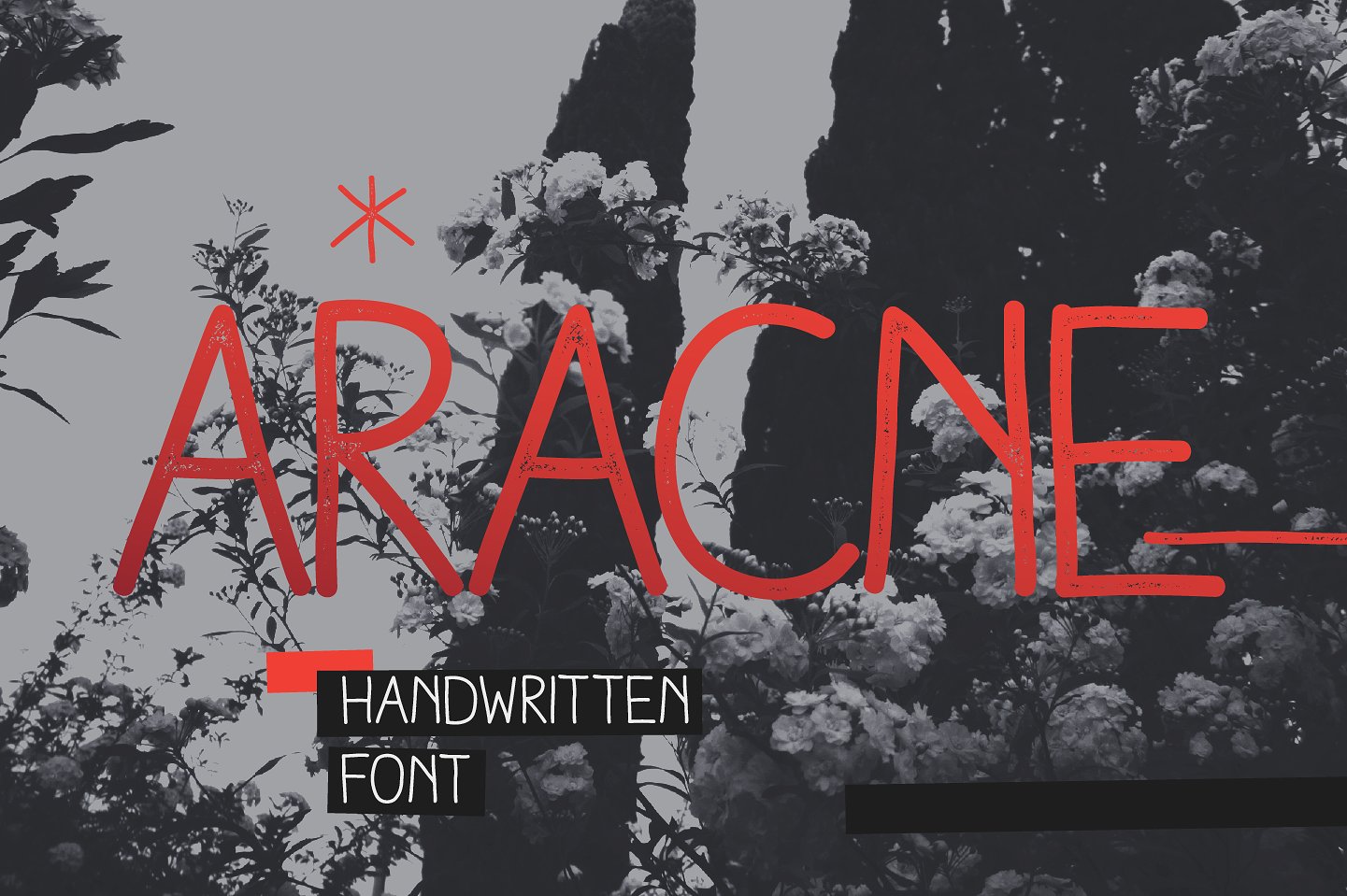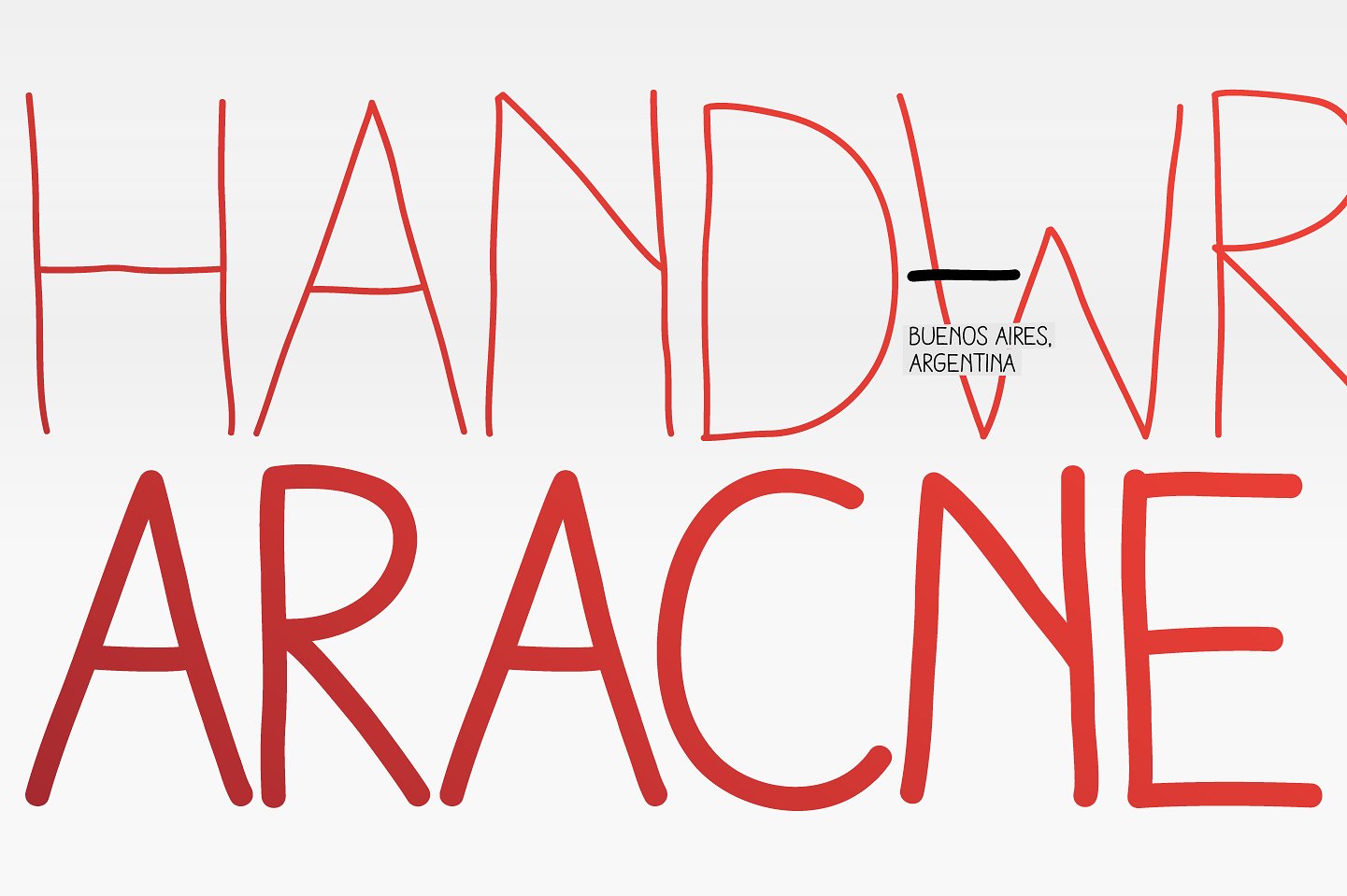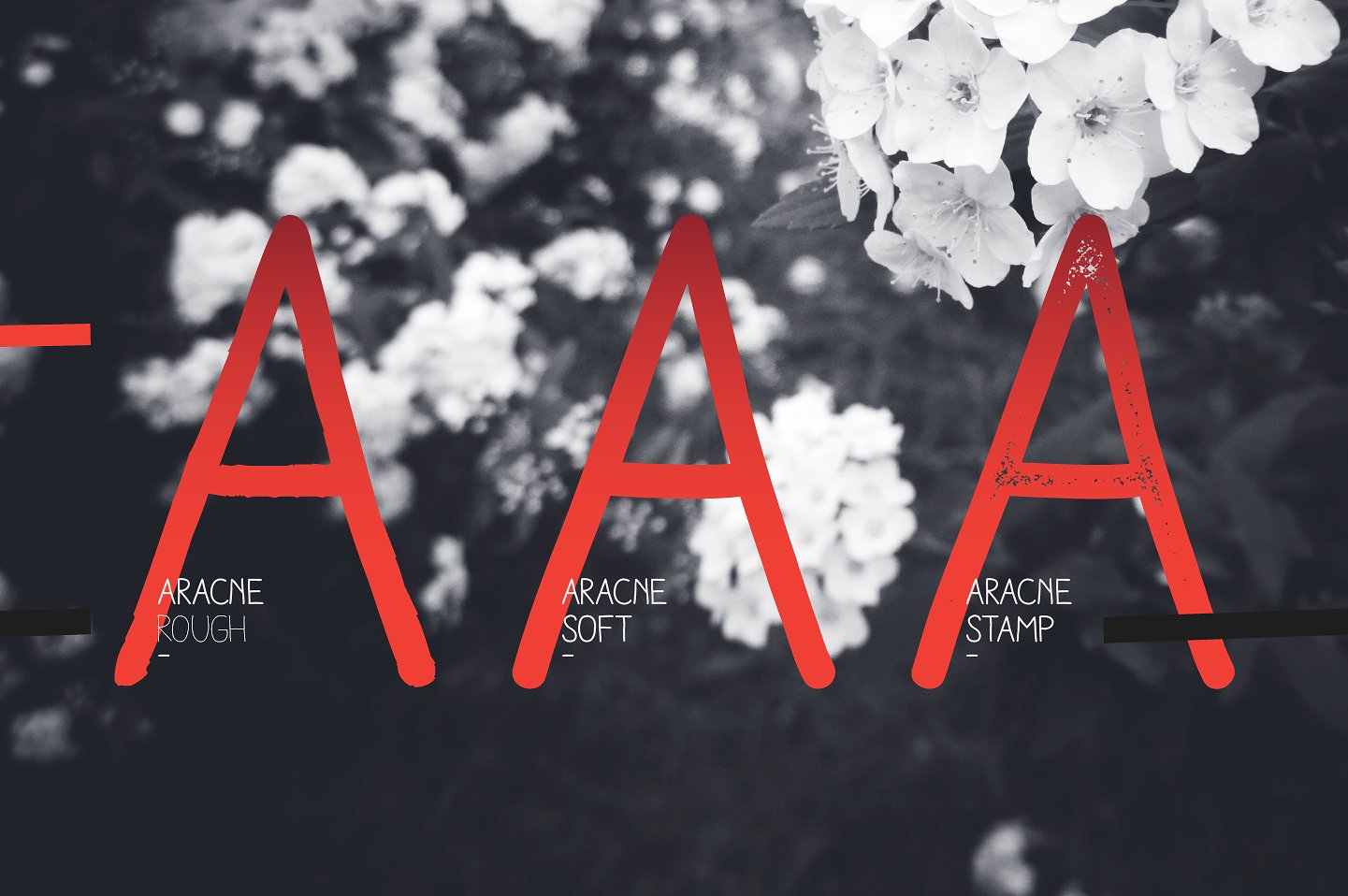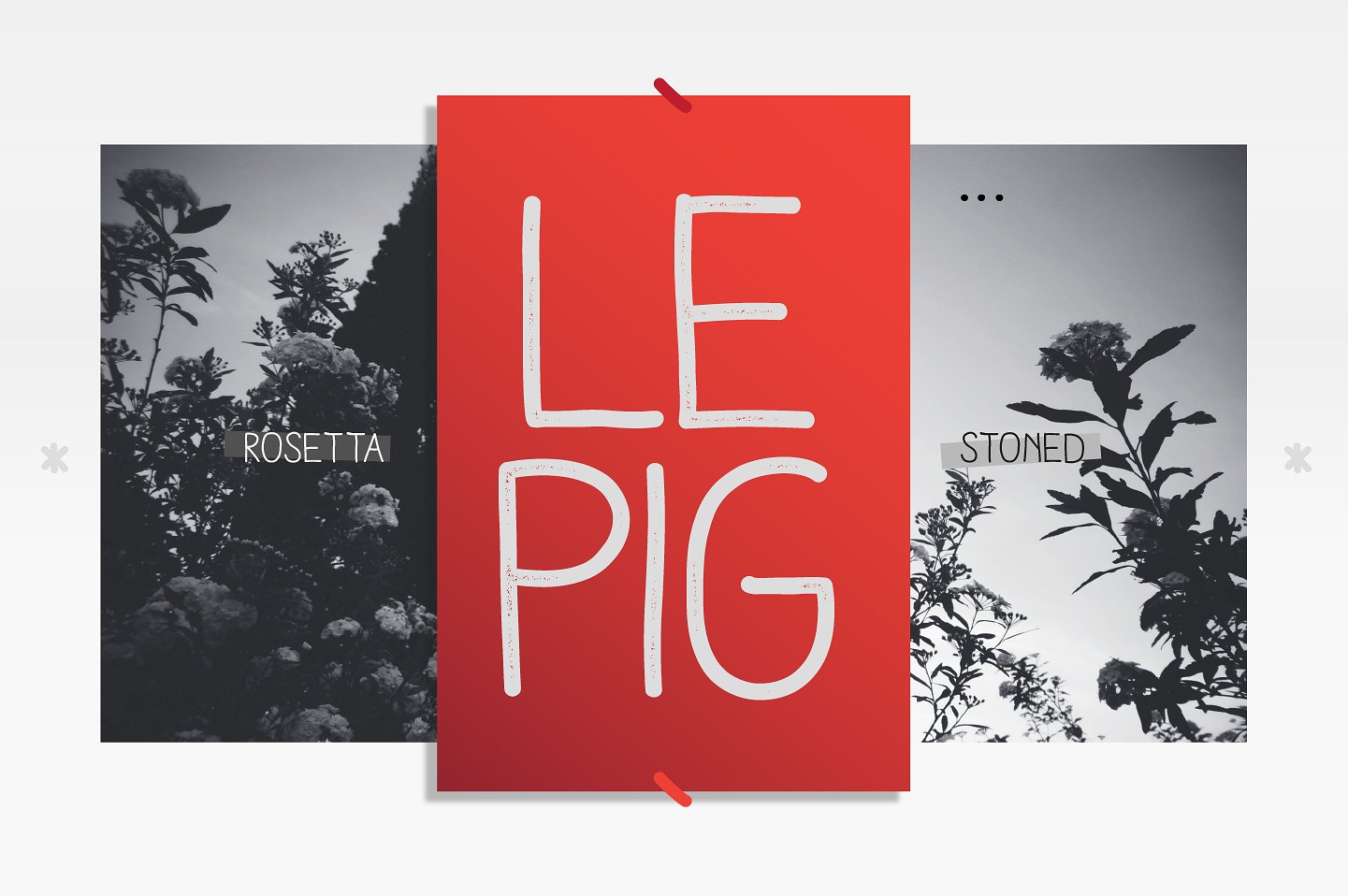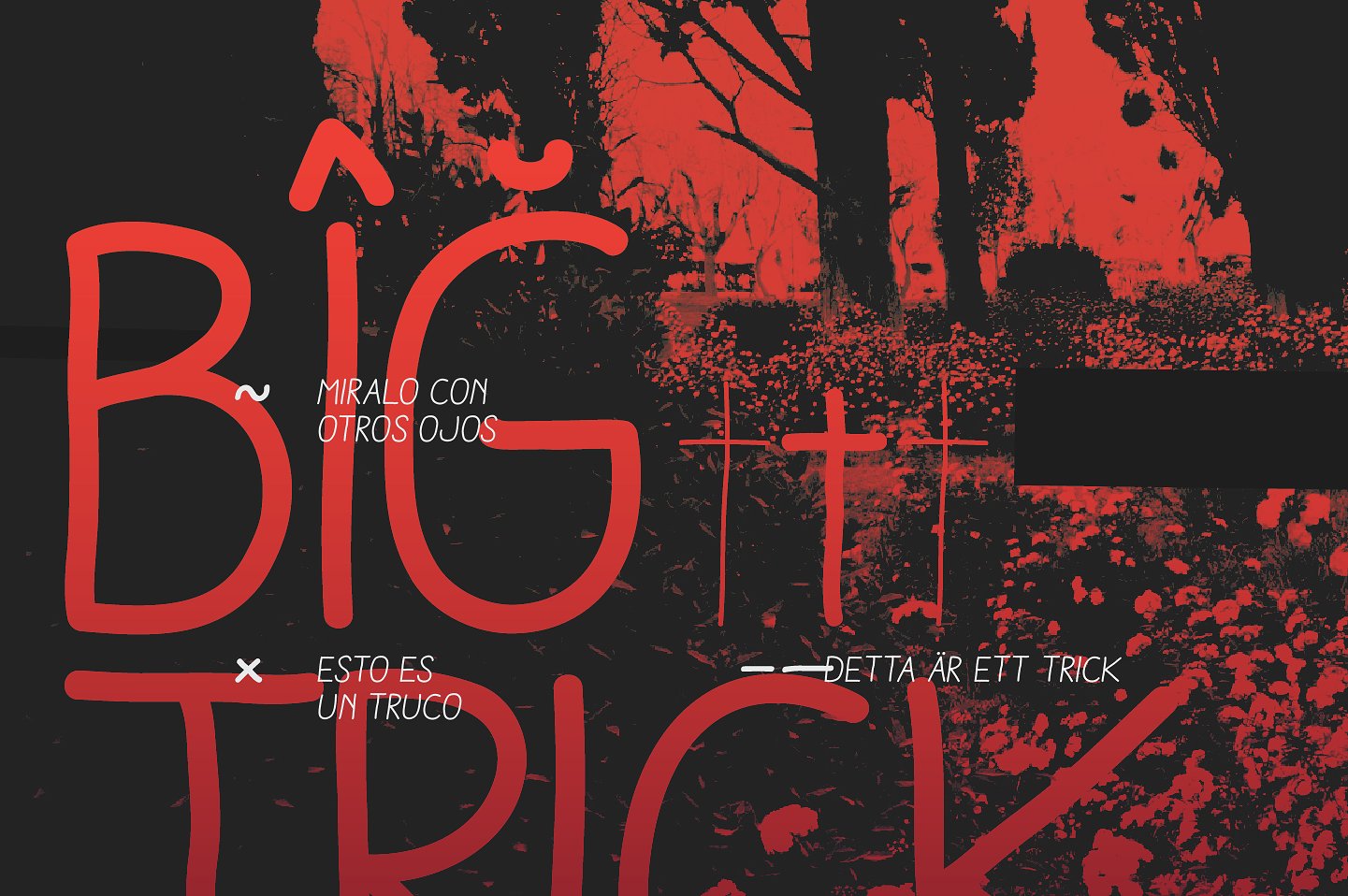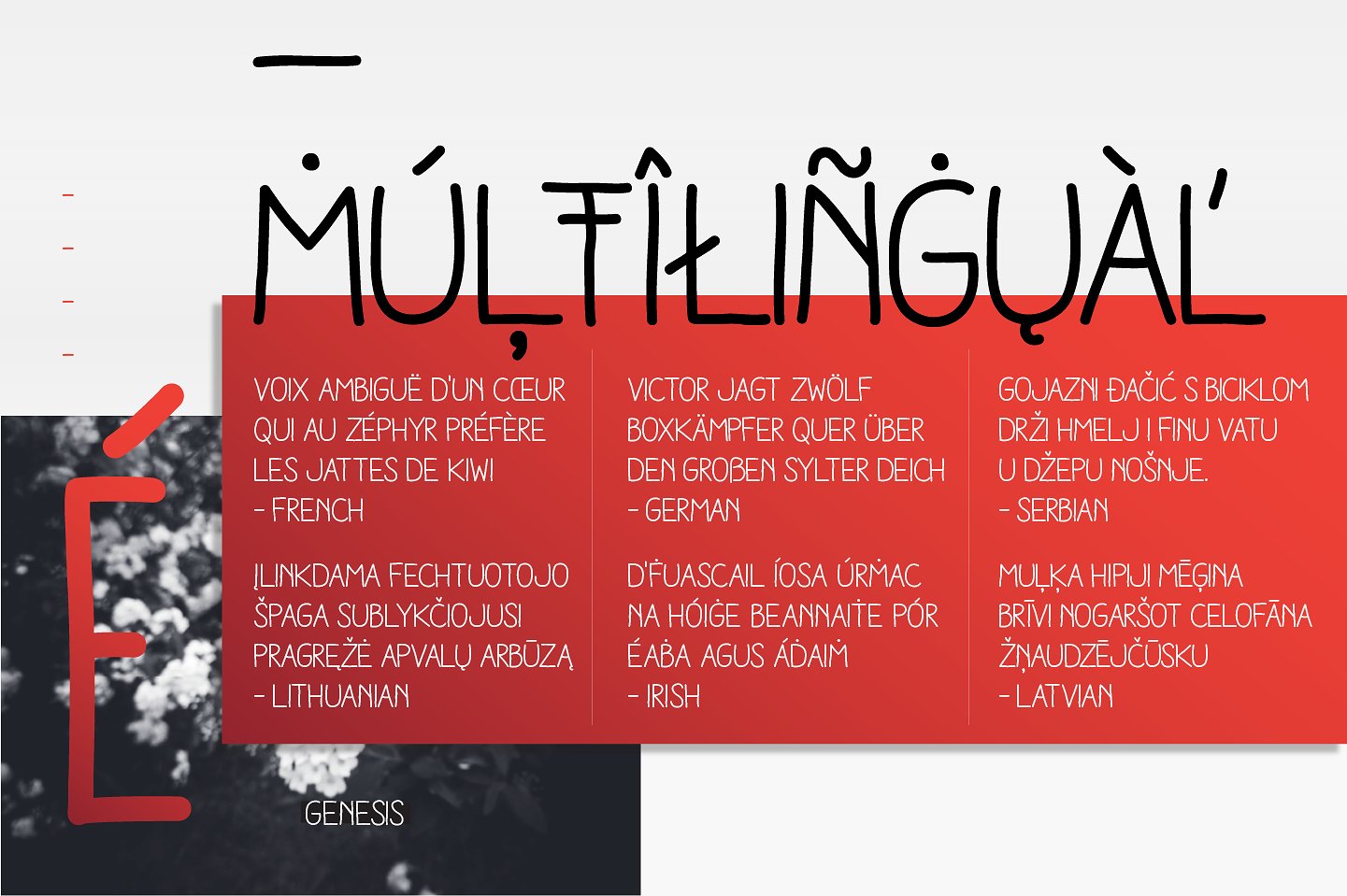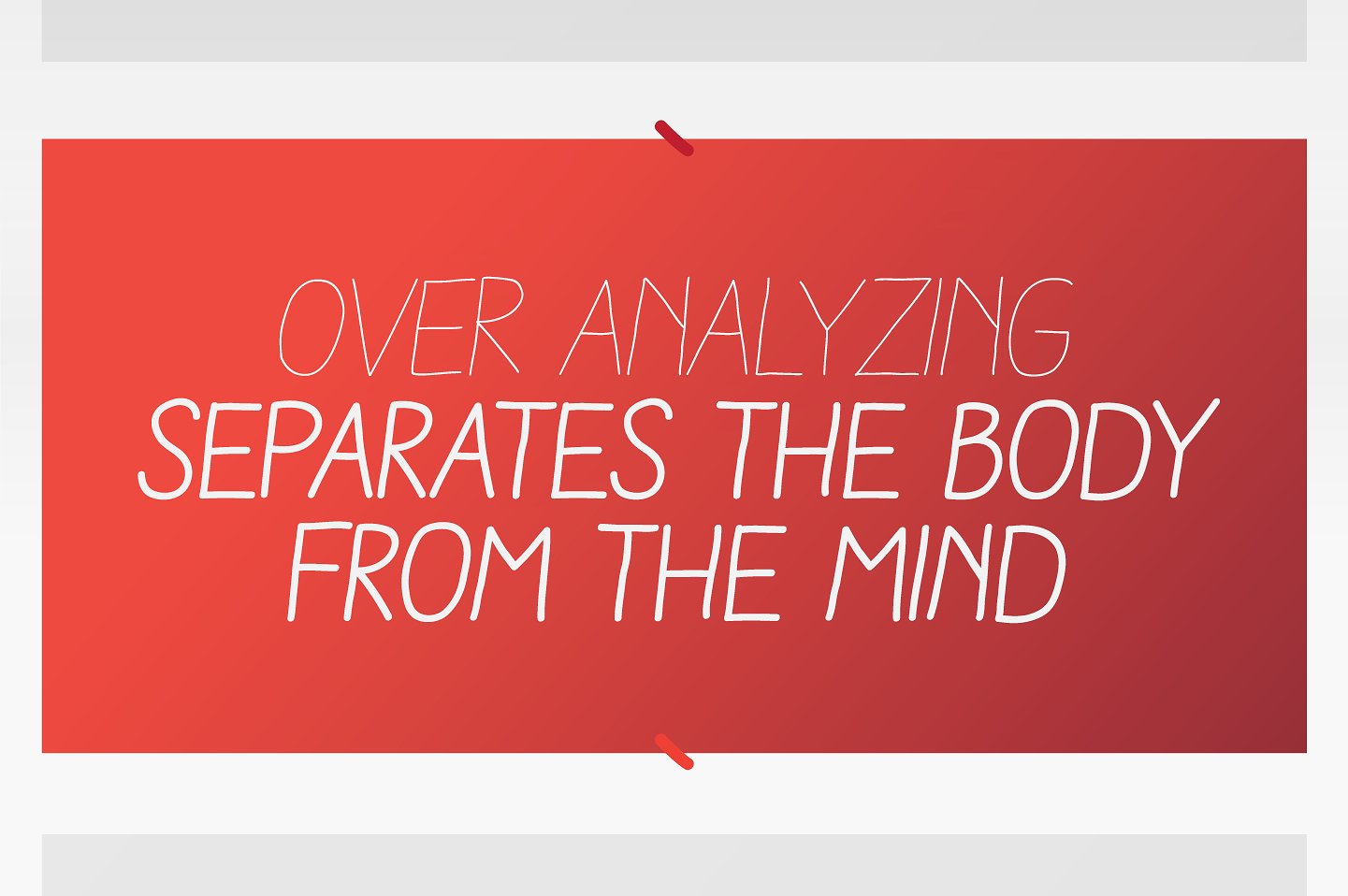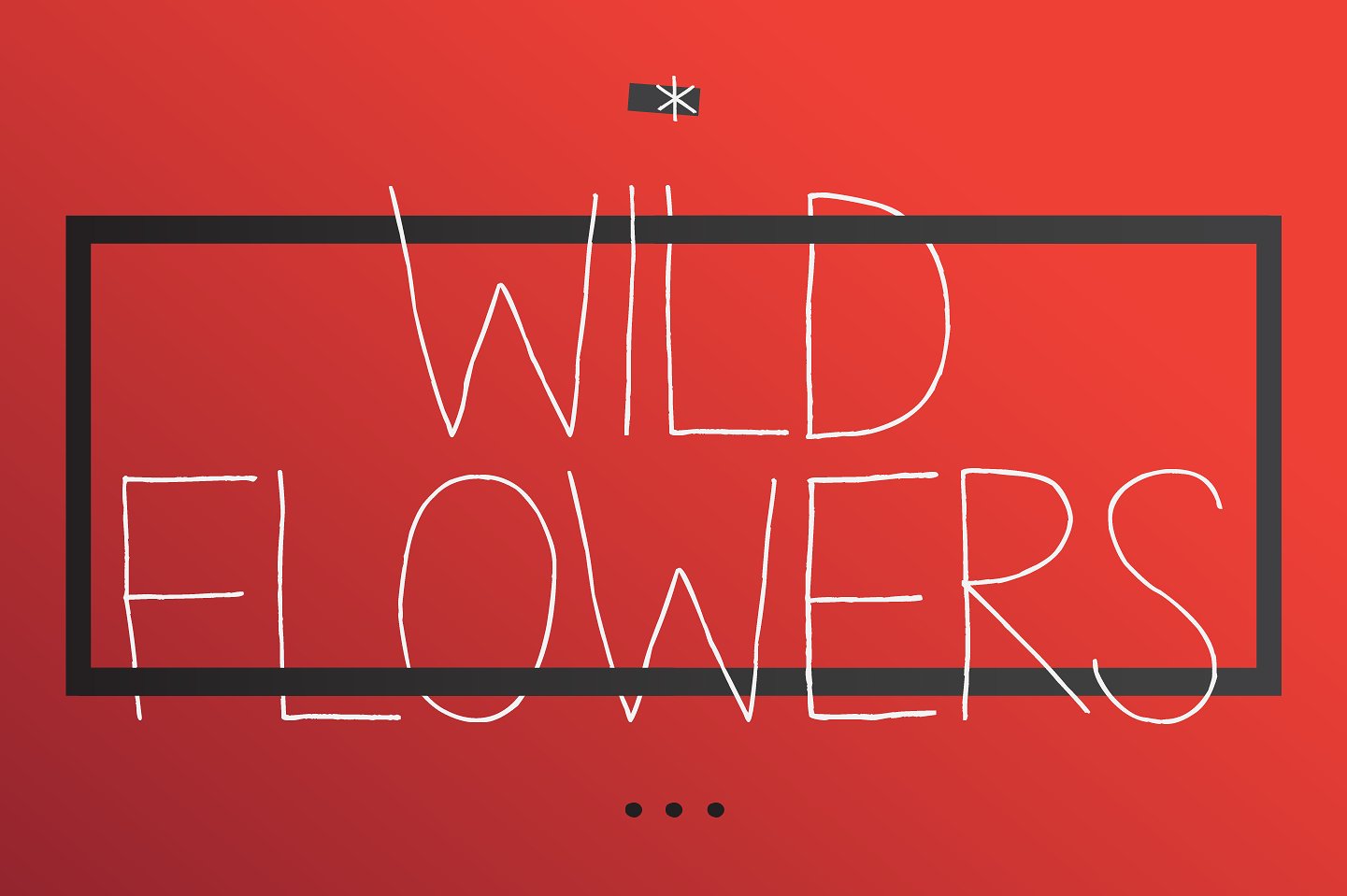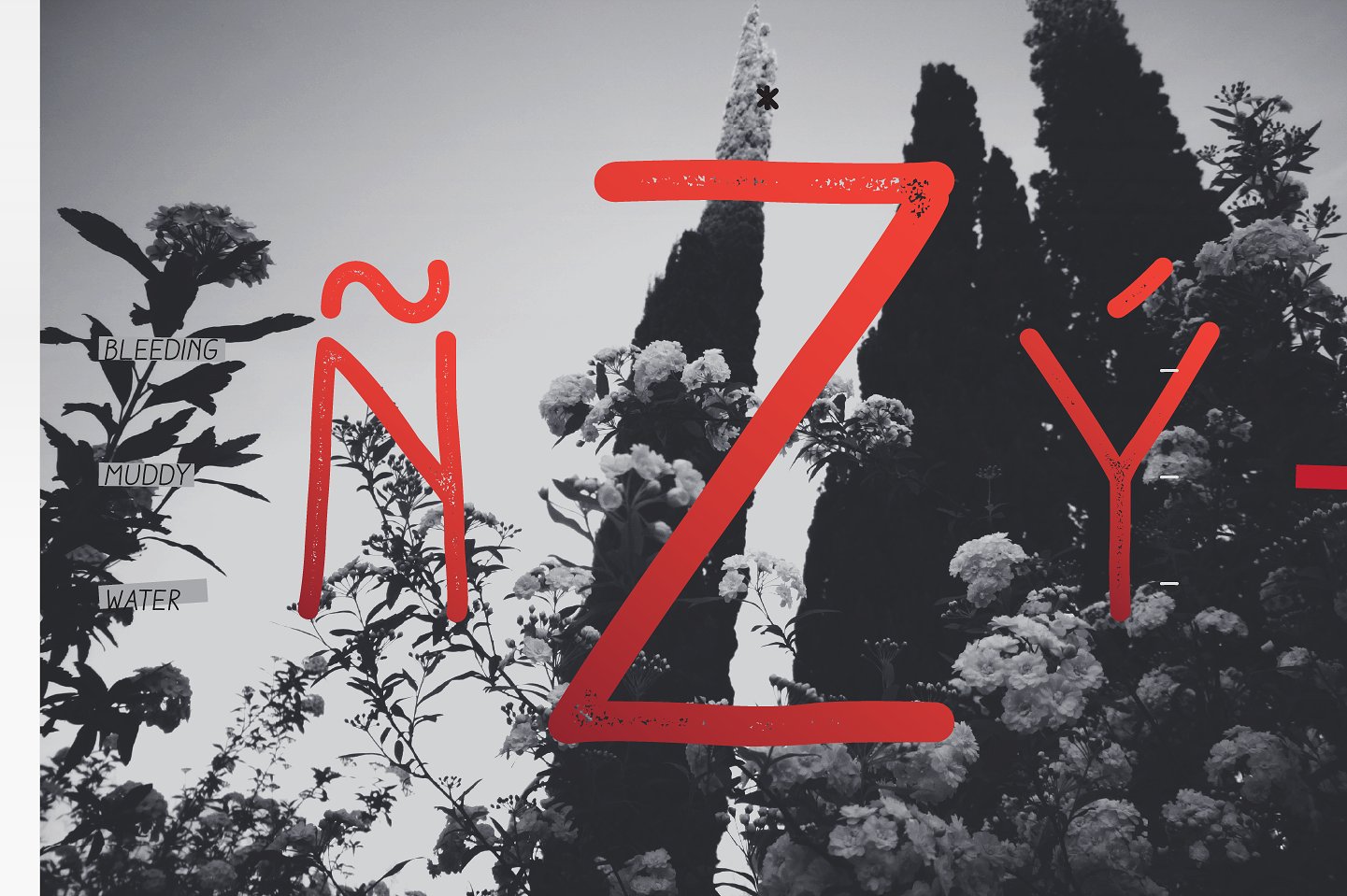
Aracne Font
About Aracne Font
Aracne is a relaxed and beautiful collection of tall, slightly scrawled letterforms. This font is full of energy and uniqueness, and looks amazing in modern and poppy designs.